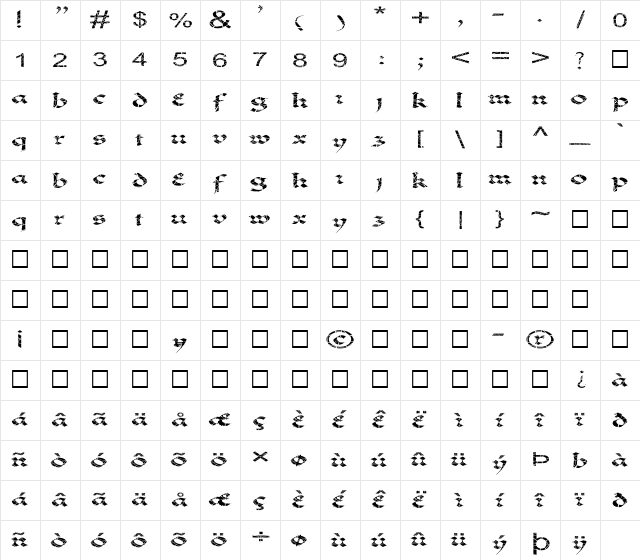
FZ JAZZY 33 CRACKED EX Normal Free Font
FZ JAZZY 33 CRACKED EX Normal
Design Context for FZ JAZZY 33 CRACKED EX
FZ JAZZY 33 CRACKED EX is a composed and adaptable typeface that performs quietly and consistently across a wide range of design contexts.